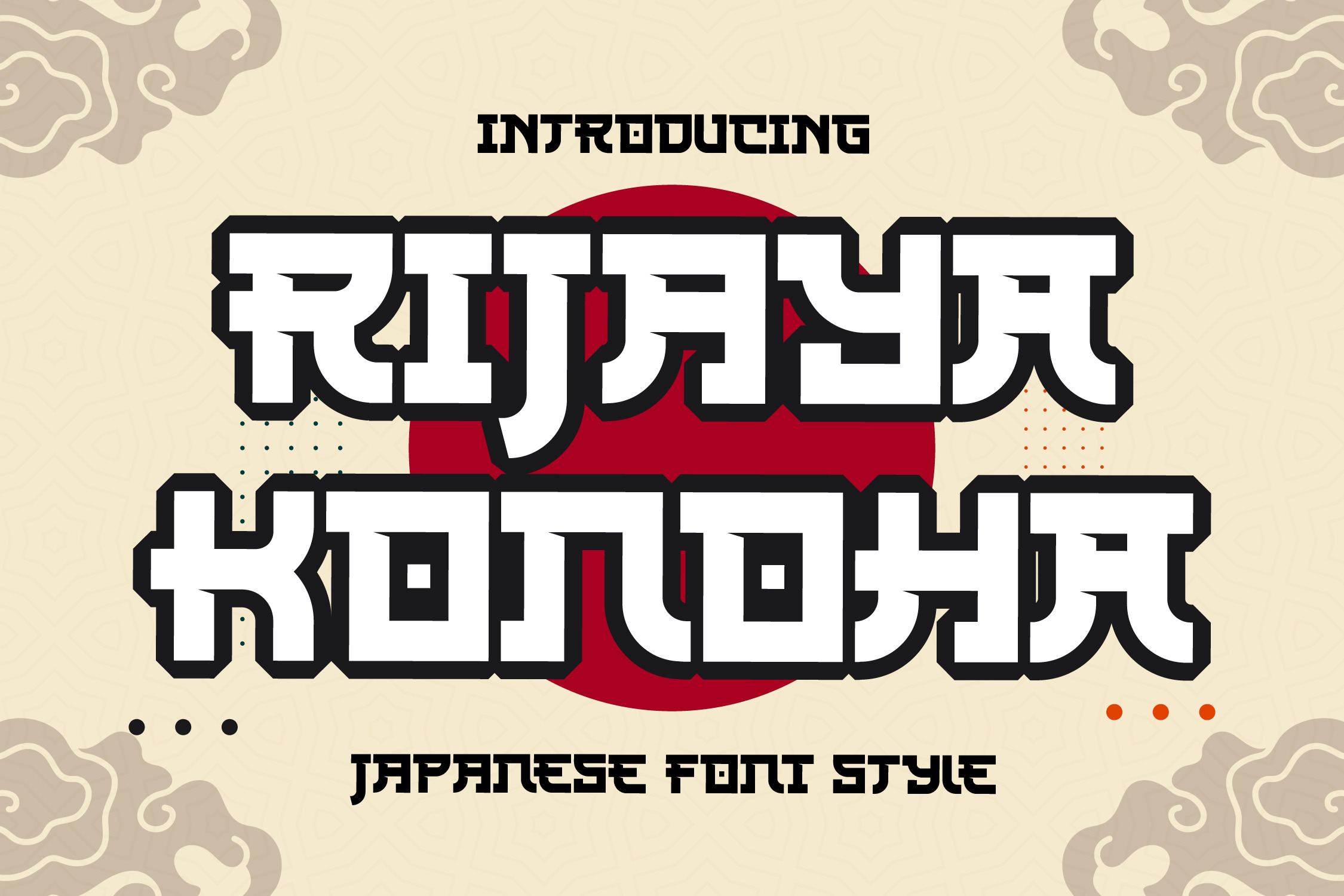
Rijaya Konoha Japanese Display Font
Proudly present Rijaya Konoha Typeface , created by Storytype, A serif modern and classic typeface that has own unique style & modern look. This typeface is perfect for an elegant & luxury logo, book or movie title design, fashion brand, magazine, clothes, lettering, quotes, and so much more.